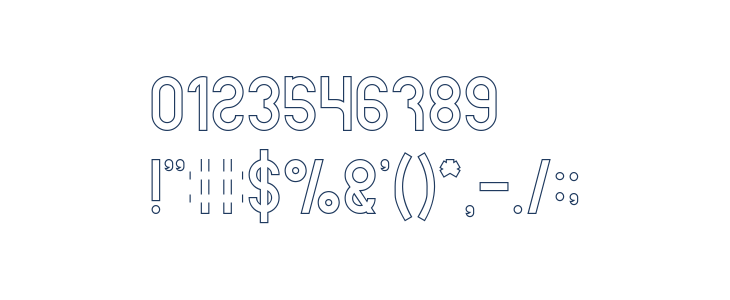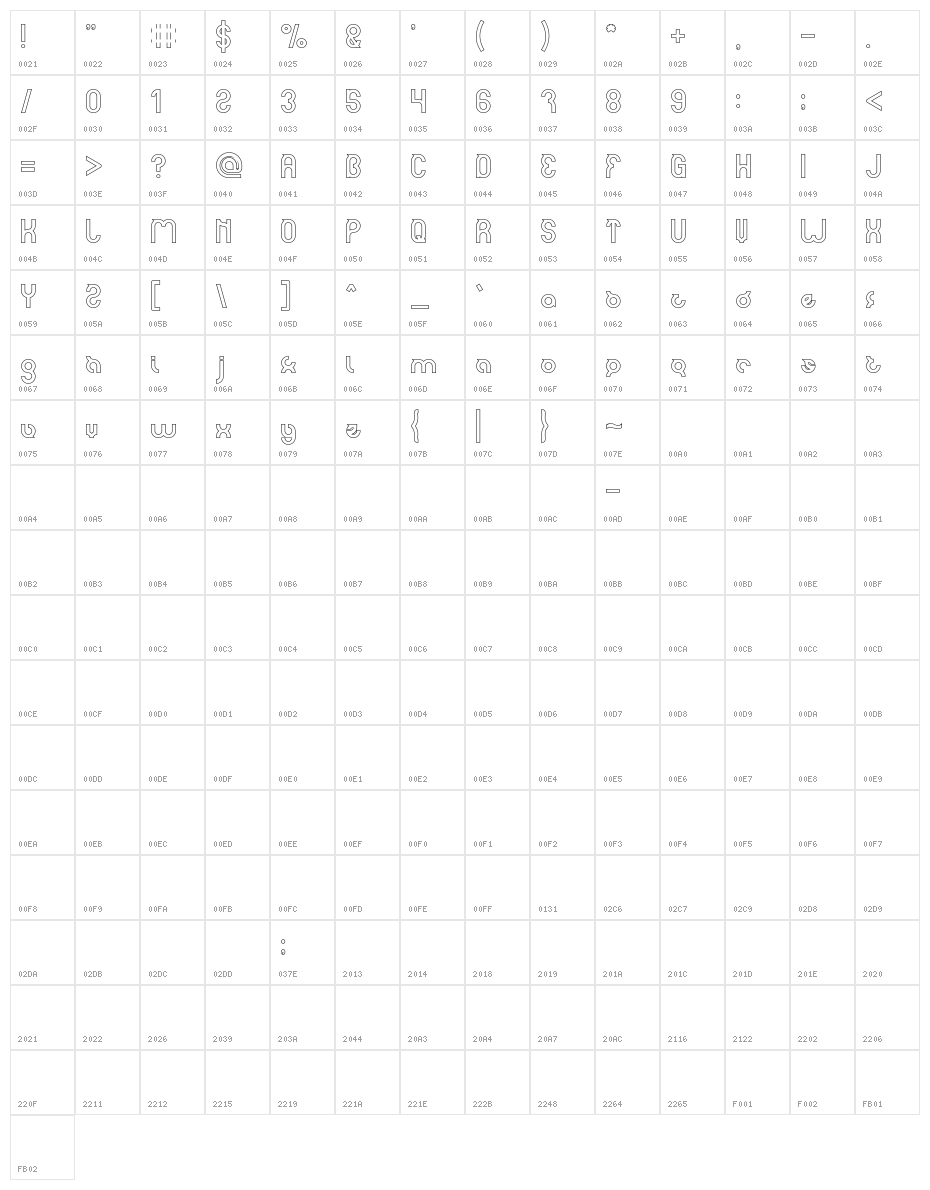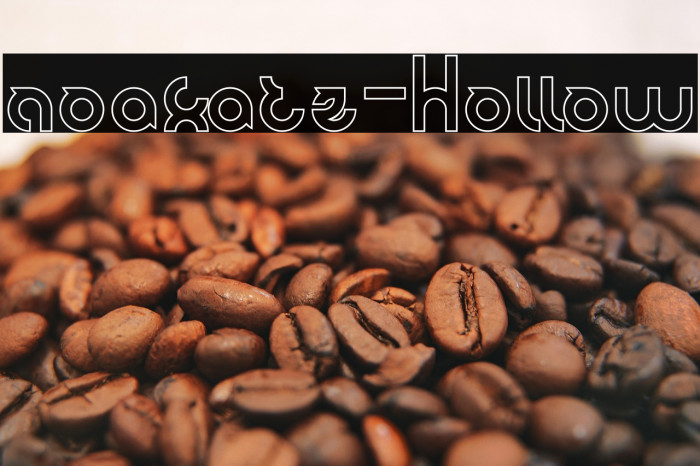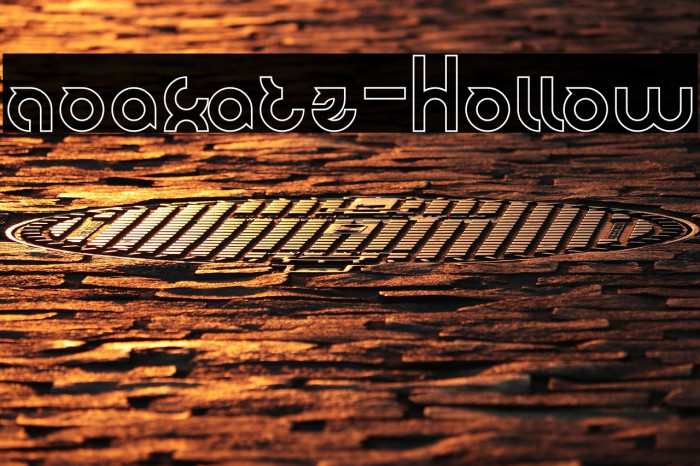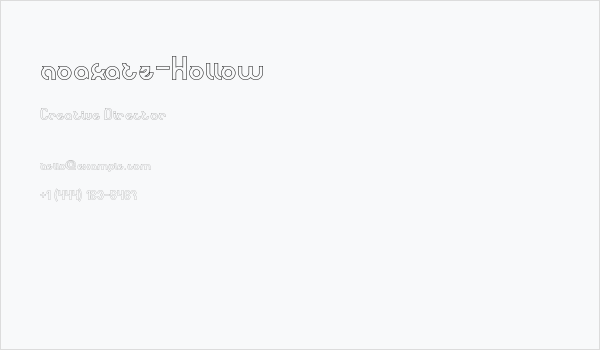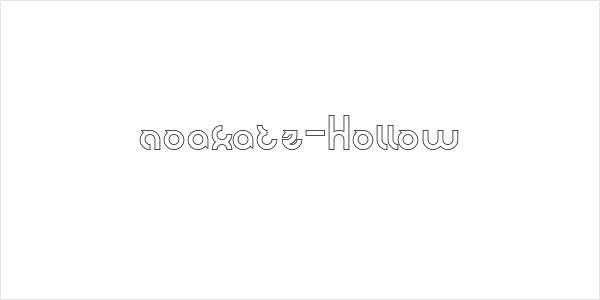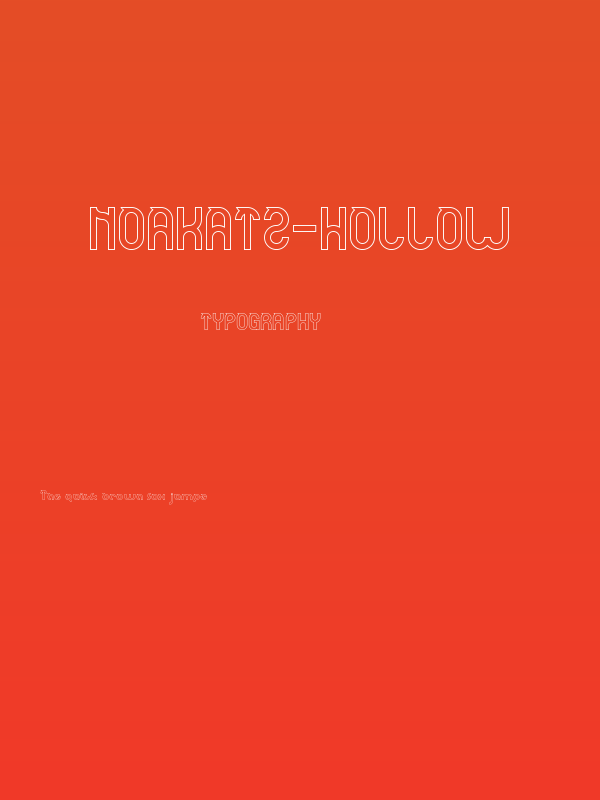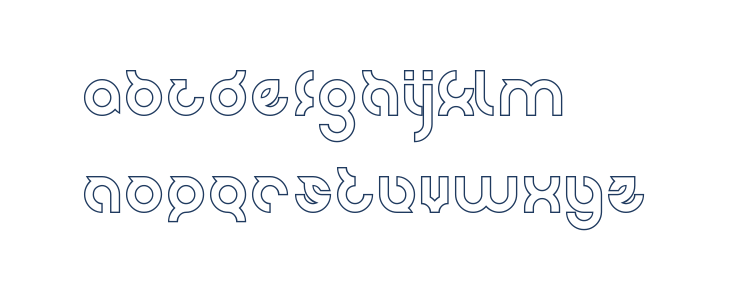
noakatz-Hollow Font
noakatz-Hollow Description
This font features a unique hollow design with a modern and decorative flair. The uppercase letters are bold and geometric, with distinct angular cuts and rounded edges that create a futuristic appearance. The lowercase letters maintain a similar style, with some characters exhibiting playful curves and unexpected angles. The numbers are consistent with the alphabet, offering a cohesive look. Special characters are creatively designed to match the overall theme, making this font ideal for eye-catching designs. Its hollow nature allows for creative layering and color play, enhancing its visual appeal.